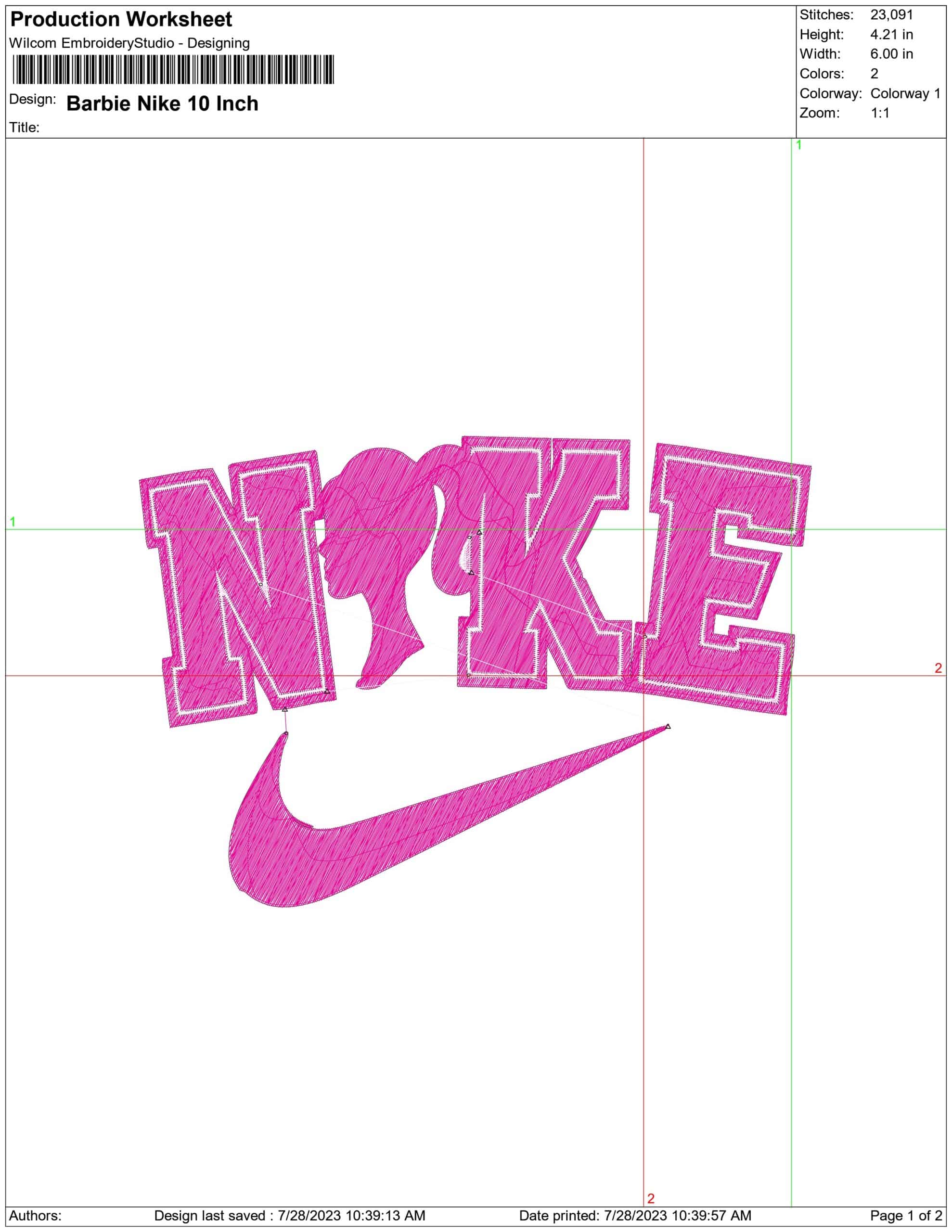
A pink, sportswear-inspired logo design with a girl’s profile that gives jackets, tees and party pieces a bold Barbie-style edge.
Bring pink logo attitude to your stitching with this modern mash-up design, combining a bold block wordmark, a side-profile female silhouette and a sweeping athletic-style mark. The look is clean, graphic and unmistakably aimed at Barbie fans who like their embroidery bright and fashion-led rather than fussy. With just two thread colours, it keeps the palette crisp in pink and white so the shapes do the talking.
It works especially well on children’s sweatshirts, birthday T-shirts, hoodies, tote bags and pyjama tops where that strong logo layout can sit front and centre. The moderately dense build gives it a solid, filled appearance, so it suits stable fabrics best, such as sweatshirt fleece, denim, canvas and medium-weight cotton. Use it when you want a playful party feel with a sharper, streetwear-style finish.